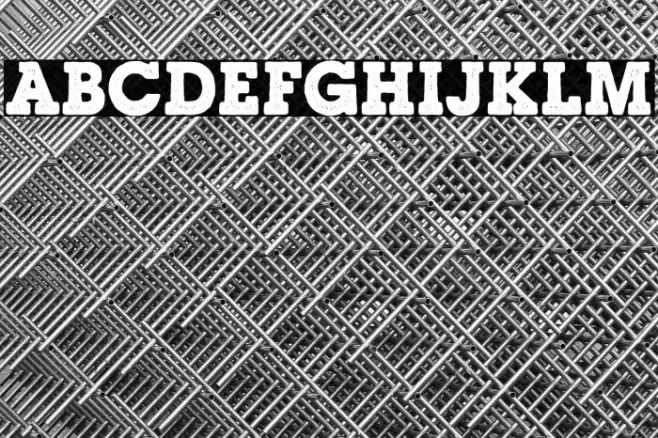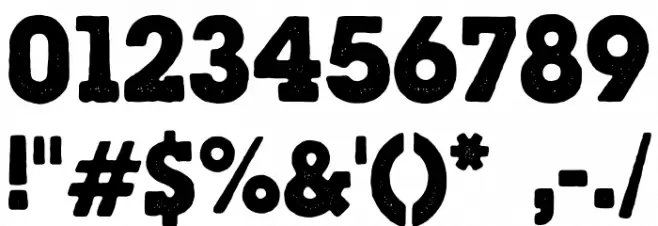
MajesticSchnozz Font
MajesticSchnozz Description
This font features a bold, textured style with a vintage flair, characterized by its thick, blocky letters and distressed appearance. The uppercase and lowercase letters maintain a consistent weight, providing a strong visual impact. The numbers and special characters are equally bold, ensuring uniformity across all glyphs. The font's rugged texture adds a handcrafted feel, making it ideal for projects that require a touch of nostalgia or a rustic aesthetic. Its boldness and texture make it stand out, perfect for eye-catching designs.
A bold, textured font with a vintage, distressed style from Uncategorized fonts.
- Font: MajesticSchnozz
- Proposed Projects: Ideal for posters, logos, branding, and packaging that require a vintage or rustic look.
- Overall Style: Vintage